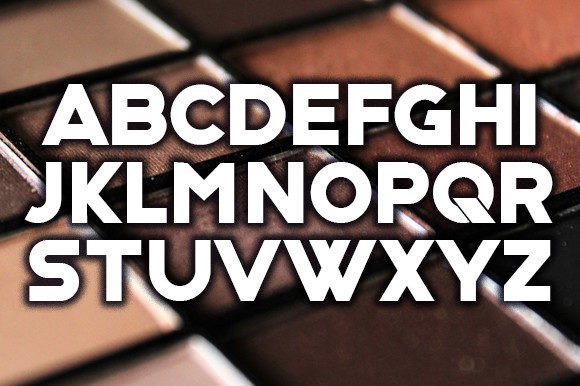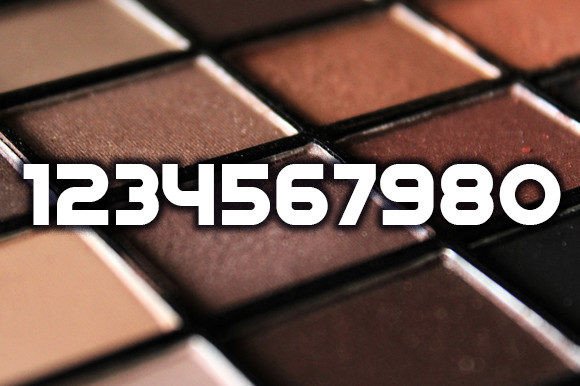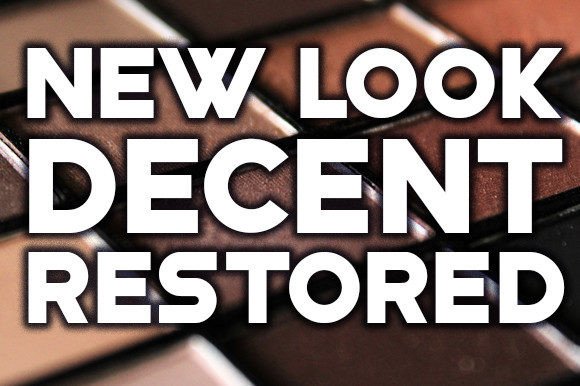
Unlock Your Creativity with the Perfect Font
Have you ever been stuck on a design project, unable to find the right font to bring your vision to life? We’ve all been there – pouring over font libraries, searching for that elusive combination of style and authenticity. But what if you could find a font that not only looks great but also feels true to your brand’s personality?
Enter Changes Font, a stylish and authentic sans serif typeface designed to help you create your best work. Whether you’re crafting posters, flyers, or even t-shirts, Changes Font is the perfect companion for any creative project. Its versatility and timeless charm make it a valuable asset for designers looking to elevate their designs and stand out from the crowd.
Key Features of “Changes Font”
Designer Review: Changes Font
Overall, I think the Changes Font is an interesting and unique addition to any design project. ✨ One of its strengths is its ability to evoke a sense of movement and change, making it perfect for projects that require a dynamic feel.
- ✨ Highly customizable: The Changes Font can be customized to fit any design style or theme, making it a versatile choice.
- ✨ Unique aesthetic: The font’s bold, geometric lines create a striking visual effect that sets it apart from more traditional fonts.
- ⚠️ Limited legibility: In certain contexts, the font’s bold lines can make it difficult to read, particularly at smaller font sizes.
- ⚠️ Limited support for non-English languages: The font’s unique design may not be suitable for languages that require more nuanced character sets.
Overall, I would recommend the Changes Font for projects that require a bold, eye-catching aesthetic. However, it’s essential to carefully consider the font’s limitations and potential impact on legibility before making a final decision.
Changes Font: A Practical Application Guide